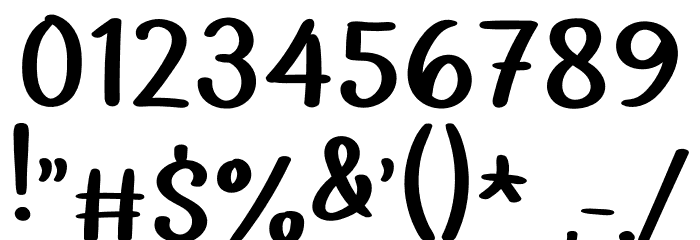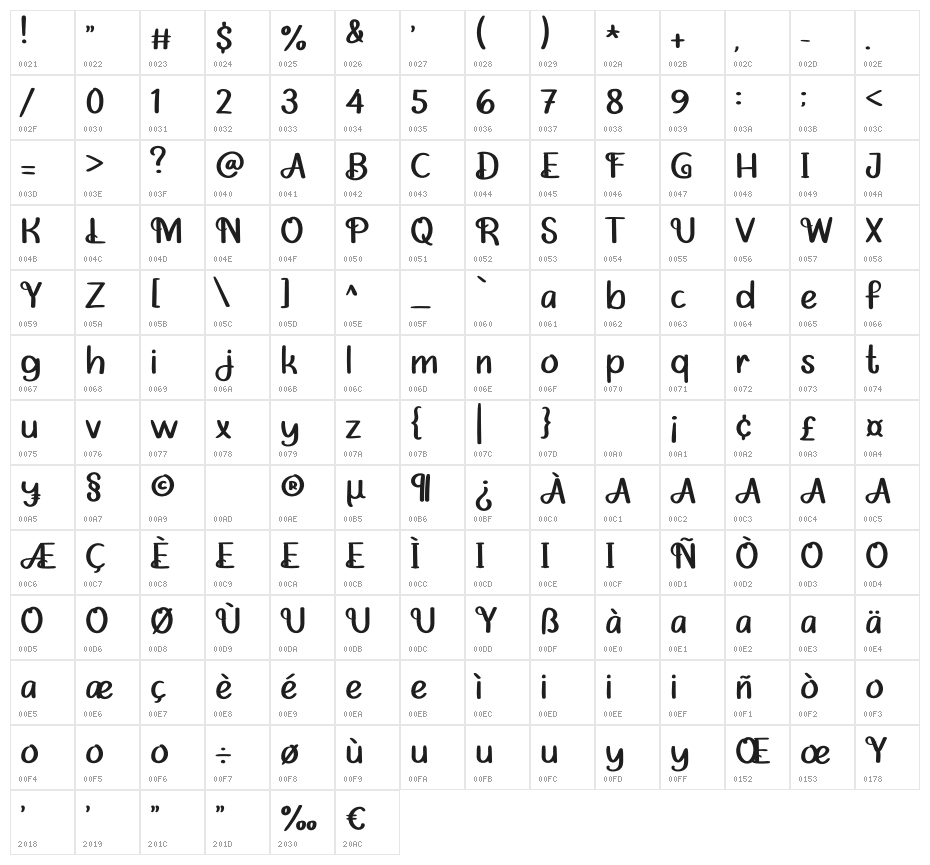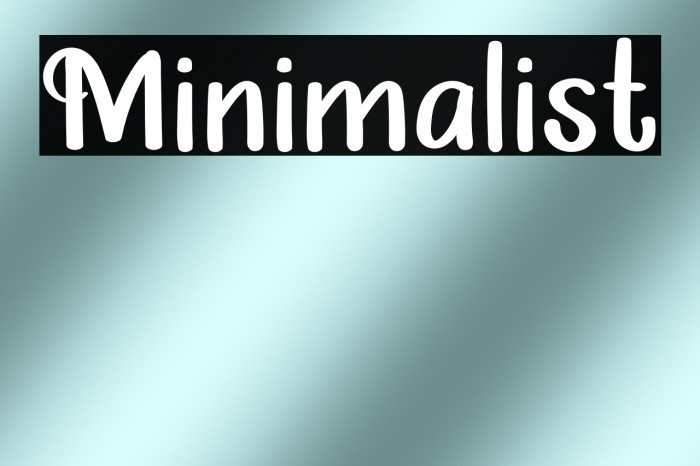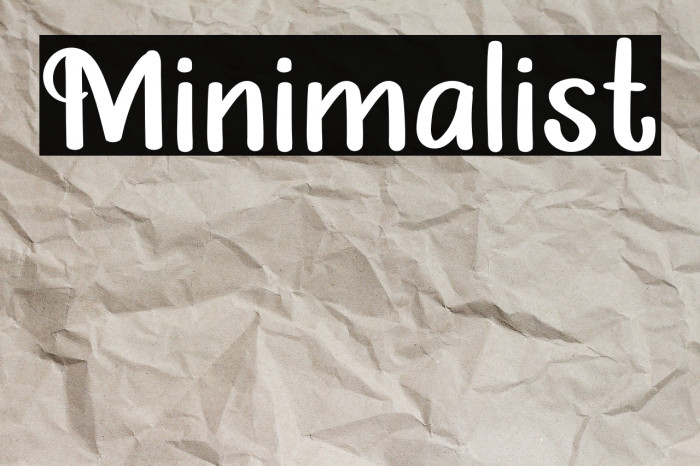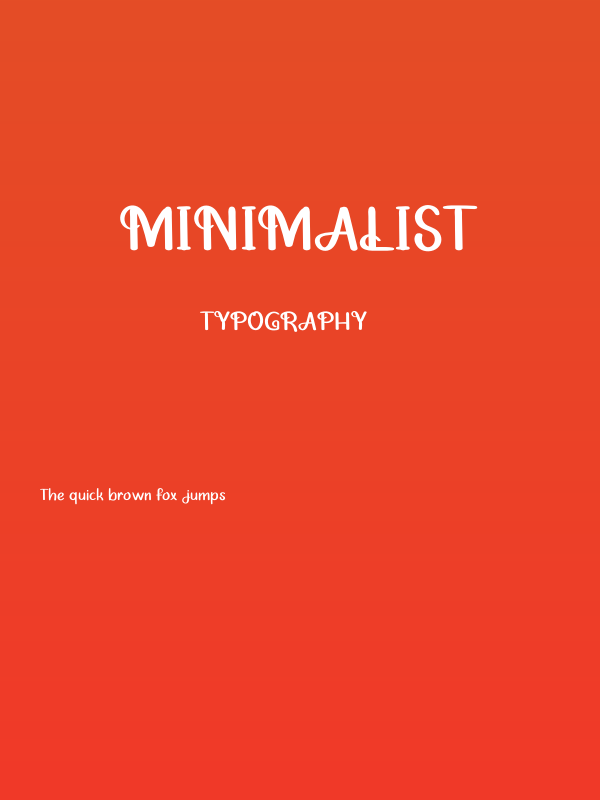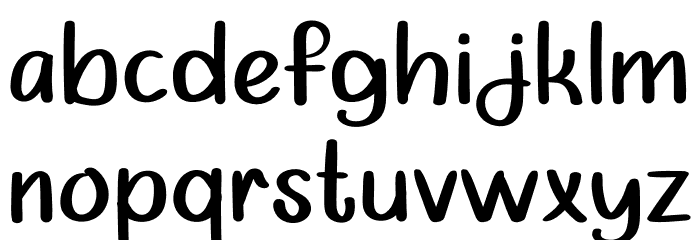
Minimalist Font
Minimalist Description
This font features a playful and rounded style, characterized by its smooth curves and friendly appearance. The letters are bold and slightly whimsical, with a consistent stroke width that gives it a uniform look. The uppercase and lowercase letters maintain a cohesive design, while the numerals and special characters complement the overall aesthetic. Its informal and approachable nature makes it suitable for projects that require a touch of fun and creativity. The font's design is both modern and versatile, making it a great choice for a variety of applications.
| Use Case | Headlines, Logos, Casual Text |
| Proposed Projects | Ideal for children's books, playful branding, casual invitations, and creative posters. |